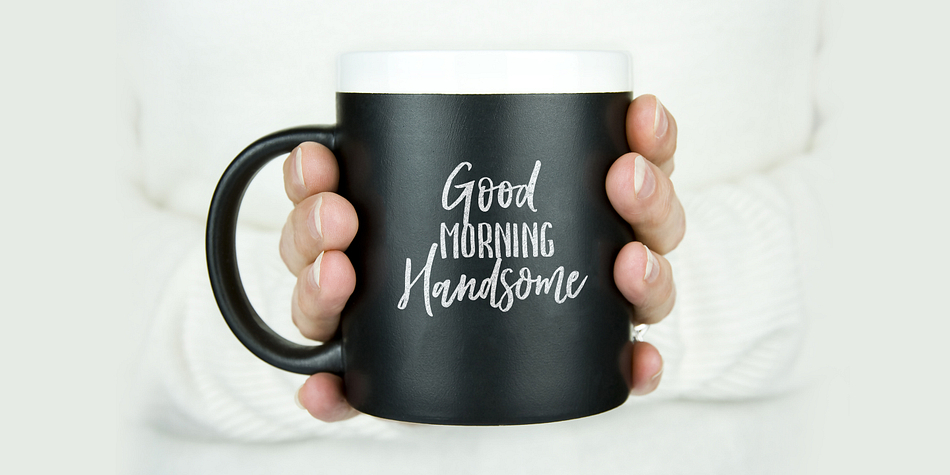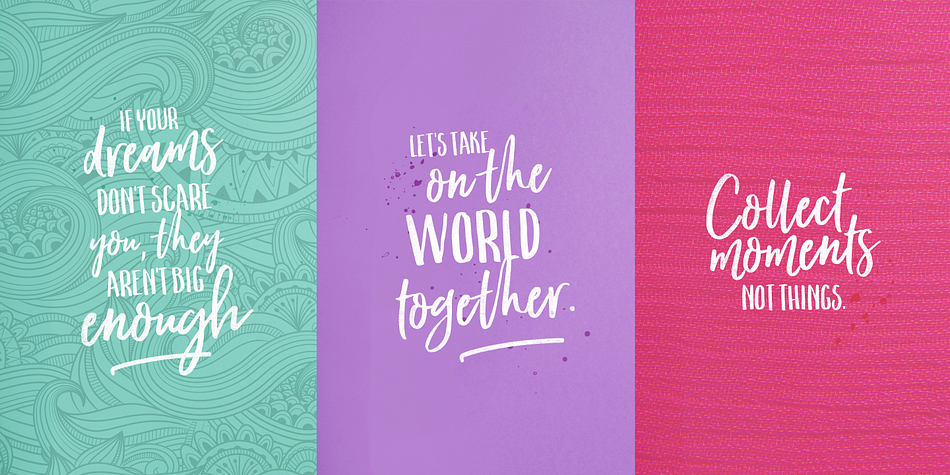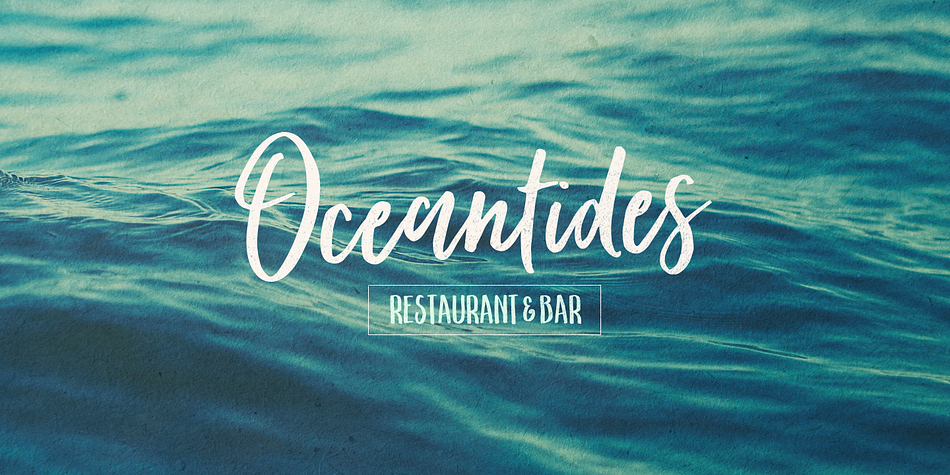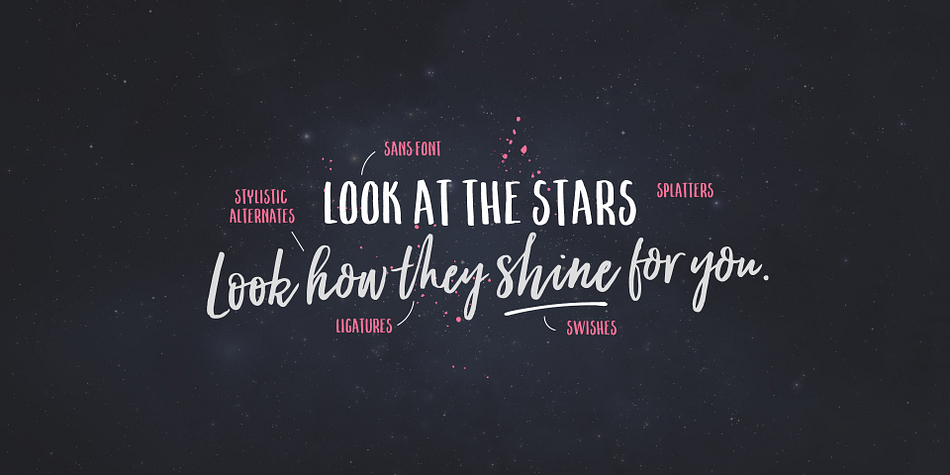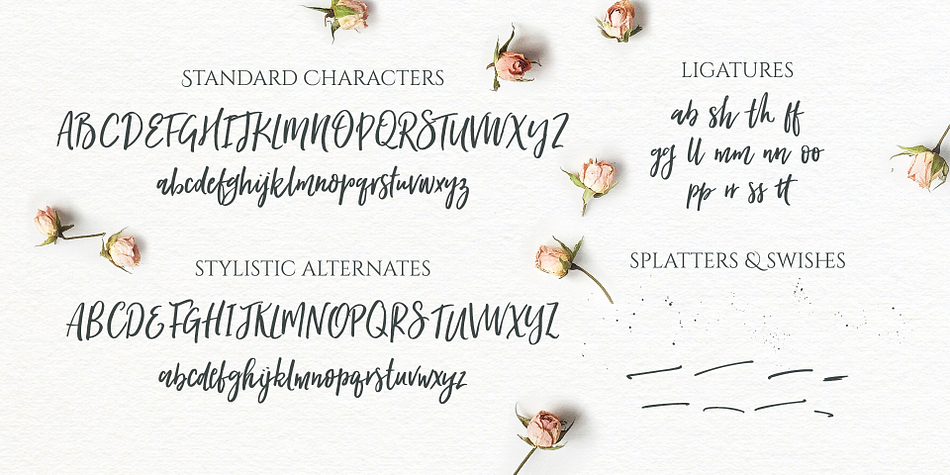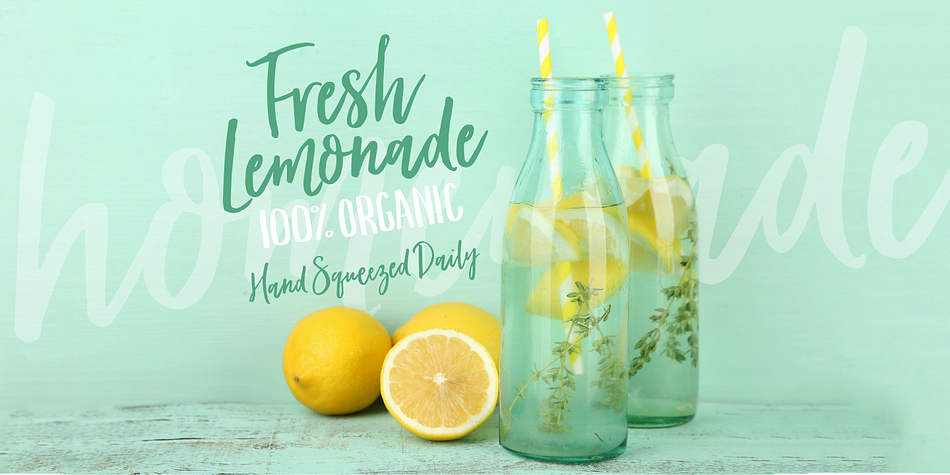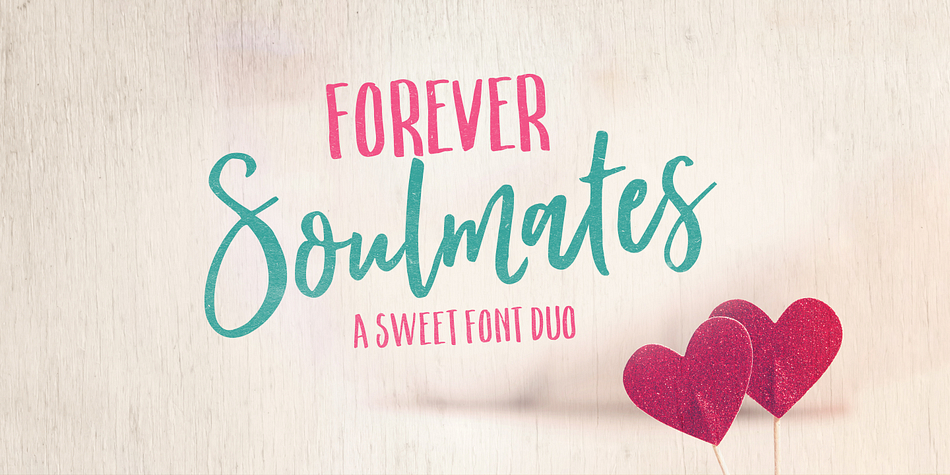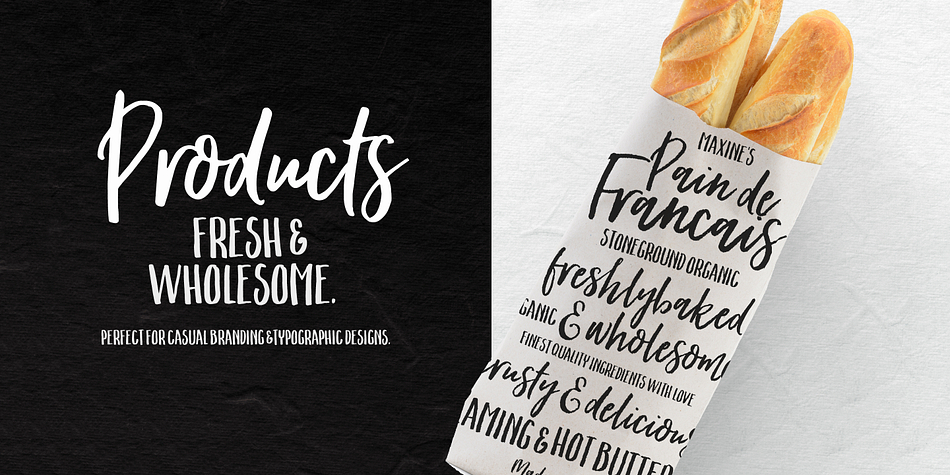
Designed by Nicky Laatz, Forever Soulmates is a dingbat and hand drawn font family. This typeface has four styles and was published by Nicky Laatz.
Forever Soulmates is based on the currently popular hand brush lettering found on social media designs, in retail fashion , and hand written quotes.
It includes Stylistic Alternates for both upper and lowercase letters, and a extensive set of ligatures to add to the organic nature of the typeface.
An extra sturdy hand-brushed sans font compliments it perfectly for quotes and typographic designs - but match the Forever Soulmates regular font with a graceful serif-style font, and watch it transform into something elegant and beautiful.
Included is a mini Dingbat font, which includes a couple of bonus splatters and swishes.
Forever Soulmates is perfect for use in Logos, branding, apparel, greeting cards, presentations, social media, posters, retail outlet design, and magazine layouts.